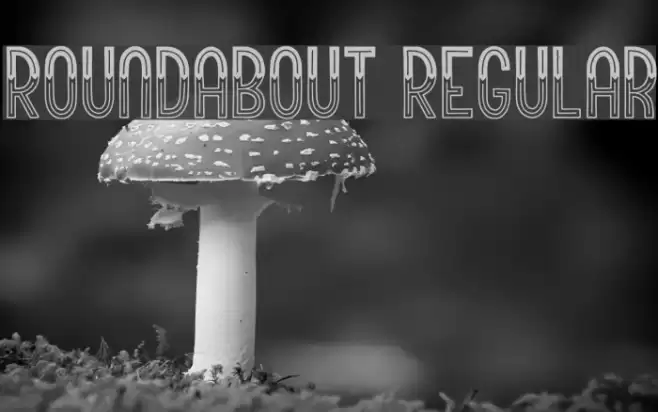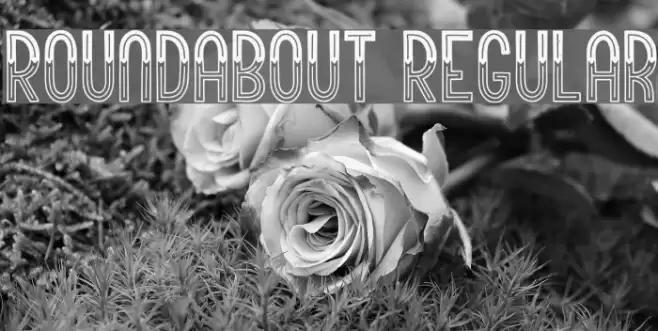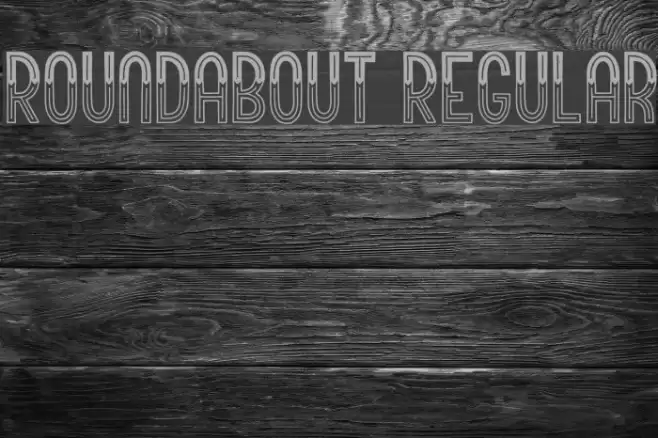
Roundabout Regular Font
Roundabout Regular Description
This font features a unique and playful design with a double-line structure that creates an outlined effect. The characters are bold and have a modern, artistic flair, making them stand out in any design. The uppercase and lowercase letters maintain a consistent style, with rounded edges and a slightly condensed form. The numbers and special characters follow the same aesthetic, ensuring a cohesive look across all text. The font's design is both eye-catching and versatile, suitable for a variety of creative projects.
A bold, outlined font with a modern and artistic style from Uncategorized fonts.
- Proposed Projects: Ideal for posters, logos, branding, and creative design projects that require a standout font.